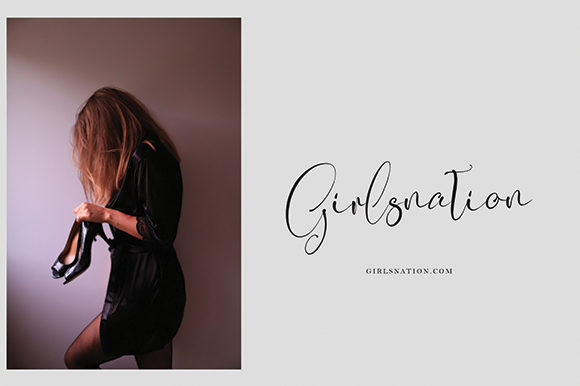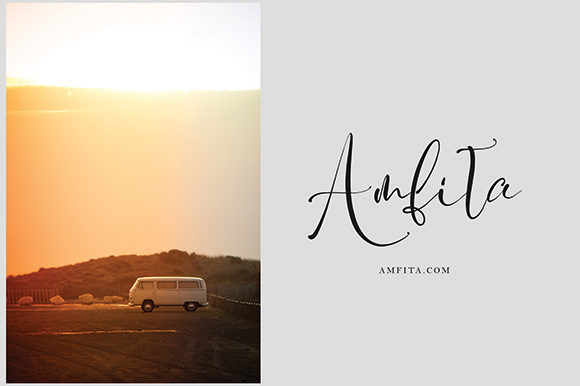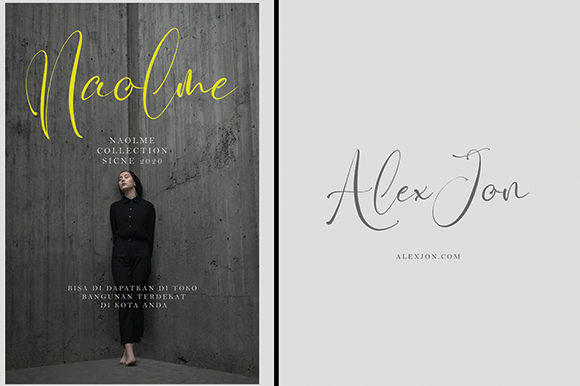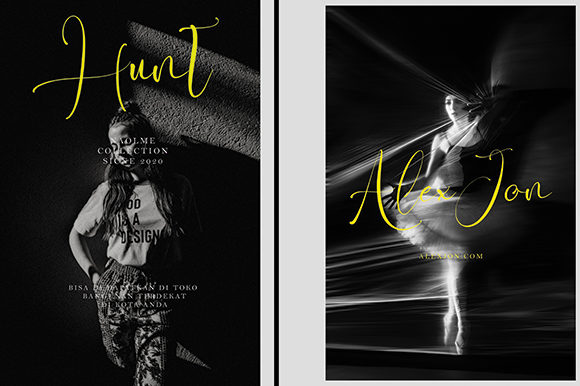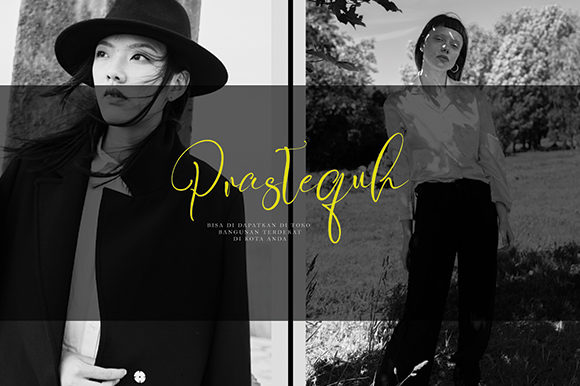
The Ultimate Game-Changer in Typography: Batosai Font
There’s nothing quite like the rush of creativity that comes with discovering a new font. It’s the spark that ignites an idea, the missing piece that brings a design to life. For designers, it’s a moment of pure joy – and one that can elevate a project from good to great. That’s exactly what happens when you stumble upon the stunning Batosai Font.
Batosai Font is a powerful script font designed to add modern authenticity to any design project. Its unique blend of strength and elegance makes it perfect for creating attention-grabbing headlines, beautiful typography, and captivating visuals. Whether you’re working on a branding project, a website, or a marketing campaign, Batosai Font is sure to take your designs to the next level.
With its versatility and style, Batosai Font is a valuable asset for any designer looking to add a touch of sophistication to their work. Its modern aesthetic and strong typography make it a must-have for anyone looking to elevate their designs and leave a lasting impression.
Batosai Font Key Features
- Font Family: Batosai is a unique, hand-drawn font with a mix of sans-serif and serif elements, offering a distinctive look.
- Character Set: The font includes a comprehensive set of characters, including uppercase and lowercase letters, numerals, punctuation marks, and special characters.
- Unique Characteristics: The font’s hand-drawn style and mix of serif and sans-serif elements make it ideal for creating visually appealing and attention-grabbing designs.
Batosai Font Review
As a designer, I was excited to dive into the Batosai font and see what it had to offer. Overall, I was pleasantly surprised by its unique charm and versatility.
- ✨ Unique blend of modern and traditional elements: Batosai’s distinctive style is a refreshing change from the usual sans-serif fonts.
- ✨ Excellent for titles and headings: The font’s bold, eye-catching quality makes it perfect for grabbing attention and setting the tone for a project.
- ✨ Supports multiple languages: Batosai is a Unicode font, making it a great choice for international projects and websites.
- ⚠️ Limited readability at small font sizes: While Batosai is stunning at larger sizes, it can become difficult to read when condensed to smaller font sizes.
- ⚠️ Not ideal for body text: Due to its unique style, Batosai may not be the best choice for large blocks of text, where readability is crucial.
I’d highly recommend Batosai for designers looking to add a touch of personality to their projects. While it may not be the best choice for every situation, it’s a fantastic addition to any designer’s toolkit.
Tips for Getting the Most Out of Batosai Font
1. Use the Batosai Font for titles and headings to create a bold and eye-catching effect.
2. Pair the Batosai Font with a clean and simple font for body text to create a balanced design.
3. Experiment with different font sizes and styles to create a unique and engaging visual effect.
The Batosai Font is ideal for use in:
- Business presentations and reports
- Marketing materials and advertising
- Graphic design and digital art